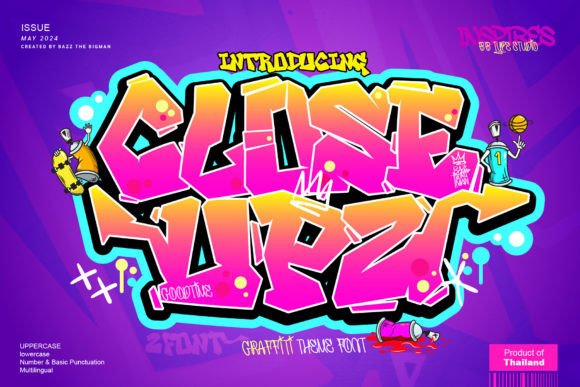
Unleashing Creative Potential with Close Upz Font: A Graffiti Display Marvel
In the world of typography, few fonts manage to capture the essence of artistic expression as dynamically as Close Upz. This extraordinary graffiti display font has been meticulously refined to not only captivate your imagination but to also elevate your artistic concepts to unprecedented heights. With Close Upz, the boundaries of creativity are pushed, allowing every spark of inspiration to flourish into a radiant masterpiece. Let’s dive into the universe of Close Upz and explore how this remarkable font can transform your creative projects.
The Essence of Close Upz Font
Close Upz is not just a font; it’s an experience. It embodies the vibrant and dynamic spirit of graffiti art, bringing a fresh and unique aesthetic to your designs. Whether you’re working on a branding project, a creative poster, or digital content that demands attention, Close Upz offers the perfect blend of style and readability. Its design is a testament to the power of typography in conveying emotion and personality, making it an invaluable tool for creatives looking to leave a lasting impression.
Delicately Refined for Maximum Impact
The refinement of Close Upz is one of its standout features. Every letterform has been carefully crafted to ensure that the font exudes a sense of fluidity and movement, reminiscent of graffiti’s expressive nature. This meticulous attention to detail ensures that Close Upz stands out in any medium, from print to digital platforms. The font’s ability to convey emotion and energy makes it particularly effective for projects that require a bold and dynamic typographic solution.
- Expressive Letterforms: Each character in Close Upz is designed to contribute to the overall aesthetic of your project, ensuring a cohesive and impactful visual experience.
- Versatility: From headlines and titles to short paragraphs, Close Upz adapts seamlessly to various design needs.
- Legibility: Despite its artistic nature, Close Upz maintains a high level of legibility, making it suitable for use in a wide range of applications.
Elevating Artistic Concepts to Unparalleled Heights
With Close Upz, the potential for creative expression is limitless. This font acts as a catalyst for your imagination, allowing you to transform simple ideas into compelling visual narratives. Whether you’re a graphic designer, artist, or content creator, Close Upz provides the tools you need to bring your vision to life. Its unique characteristics make it an excellent choice for projects that demand a touch of personality and flair.
Unleashing Limitless Potential
The true power of Close Upz lies in its ability to unlock the limitless potential within every creative. By providing a font that is both artistically satisfying and highly functional, Close Upz empowers designers and artists to push the boundaries of what’s possible. This graffiti display font is not just a tool; it’s a partner in the creative process, inspiring users to explore new ideas and experiment with different styles.
Applications of Close Upz
- Graphic Design: Use Close Upz to create eye-catching posters, logos, and branding materials that stand out.
- Digital Content: Enhance your website, blog, or social media posts with a font that grabs attention and leaves a lasting impression.
- Art Projects: Incorporate Close Upz into your artwork to add a dynamic and expressive element.
Transforming Creative Sparks into Radiant Masterpieces
The journey from a creative spark to a radiant masterpiece is often filled with challenges. However, with Close Upz, this process becomes more intuitive and enjoyable. The font’s ability to convey emotion and energy means that even the simplest ideas can be transformed into visually stunning creations. By choosing Close Upz, you’re not just selecting a font; you’re embracing a creative philosophy that values expression, innovation, and beauty.
Why Choose Close Upz?
- Unique Aesthetic: Stand out from the crowd with a font that offers a fresh and distinctive look.
- High Versatility: Suitable for a wide range of projects, from digital content to print materials.
- Emotional Connection: Create a deeper connection with your audience through typography that speaks to them on an emotional level.
Close Upz is more than just a graffiti display font; it’s a key to unlocking the full potential of your creativity. Its delicate refinement, expressive letterforms, and versatility make it an invaluable asset for any creative project. By incorporating Close Upz into your design toolkit, you’re taking the first step towards creating works that not only captivate but also inspire. So, unleash the limitless potential of Close Upz and watch as every creative spark is transformed into a radiant masterpiece.